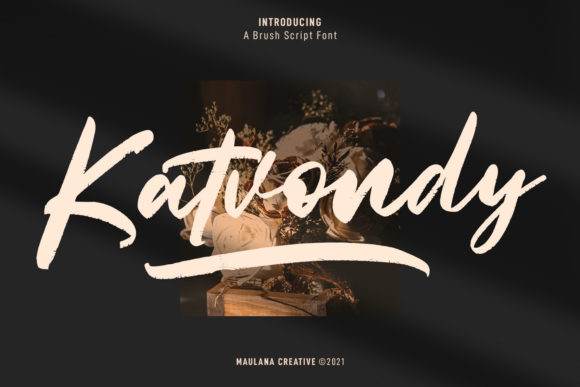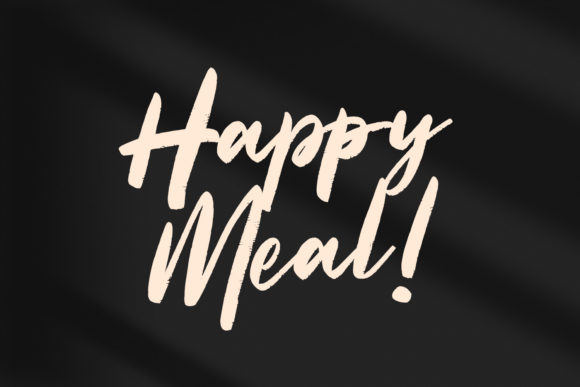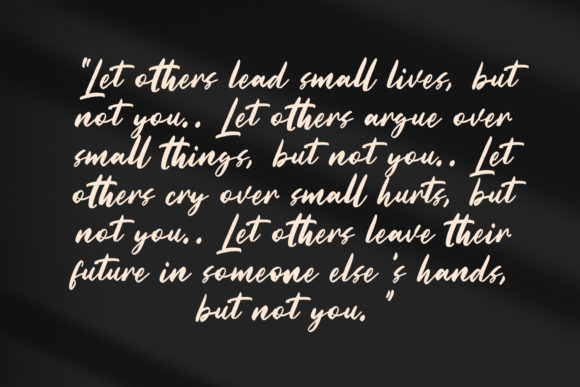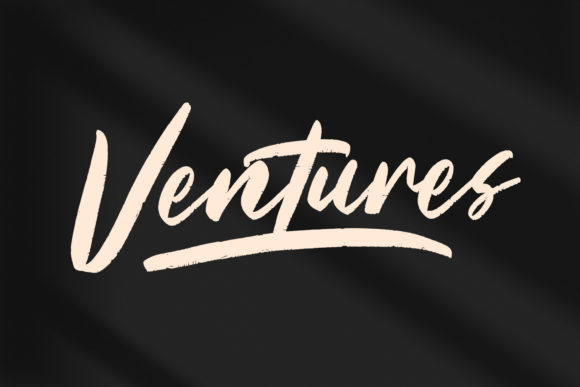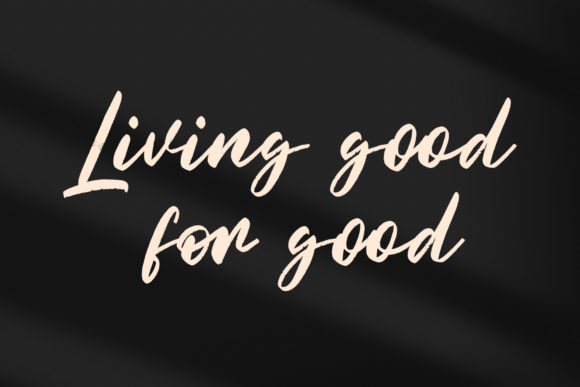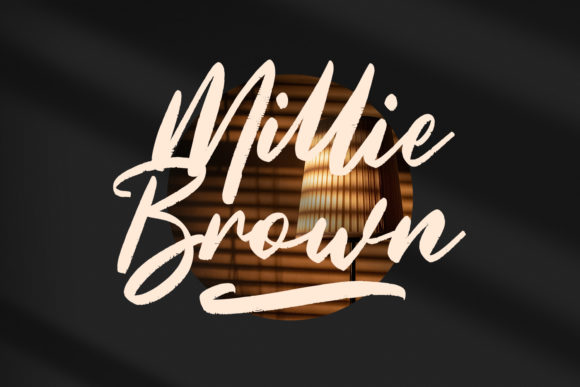
Katvondy Marker Brush Script Font
About Katvondy Marker Brush Script Font
Katvondy is a handwritten font with a slanted bold marker stroke and fun characters. It is suitable for logo design, social media posts, movie and book titles, letters, and many more. You can also use it to add secondary text, as it will give your project an elegant flair and feel.